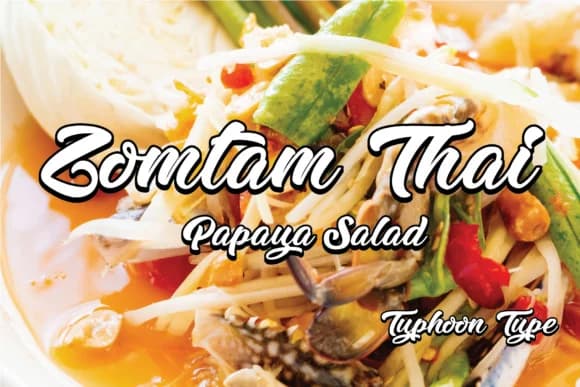
About Zomtam Thai Font
Zomtam Thai by Typhoon Type™ is a bold handwritten script that brings authentic Thai character to projects seeking genuine cultural expression. With its flowing, confident letterforms, this typeface serves designers and businesses looking to create Thai restaurant menus and signage that communicate tradition and warmth, wedding invitation suites celebrating Thai customs with cultural depth, packaging for Thai wellness and beauty brands wanting a personal touch, and social media graphics for hospitality businesses building connections with audiences who value authentic design.
The font's strong brushwork quality maintains legibility even at display sizes, though its distinctive Thai styling requires thoughtful design decisions to avoid overwhelming compositions. The handwritten energy distinguishes it from more formal serif or geometric typefaces, making it particularly effective for brands and projects aiming to communicate cultural authenticity and human craftsmanship rather than corporate sterility. This approach resonates with modern audiences who increasingly prefer design that reflects genuine cultural identity over mass-market aesthetics.
Using Zomtam Thai strategically within layouts allows designers to anchor their visual hierarchy with this impactful script while supporting it with complementary typefaces for secondary text. The font works especially well when given breathing room and paired with minimalist design elements that let its distinctive character shine. Discover Zomtam Thai on Creative Fabrica and bring authentic Thai expression to your next design project.
Zomtam Thai Font is a script font that shines as a display or heading face. Pair it with a clean sans-serif or serif font for body text — the contrast creates a clear hierarchy while the two styles stay balanced and easy to read.